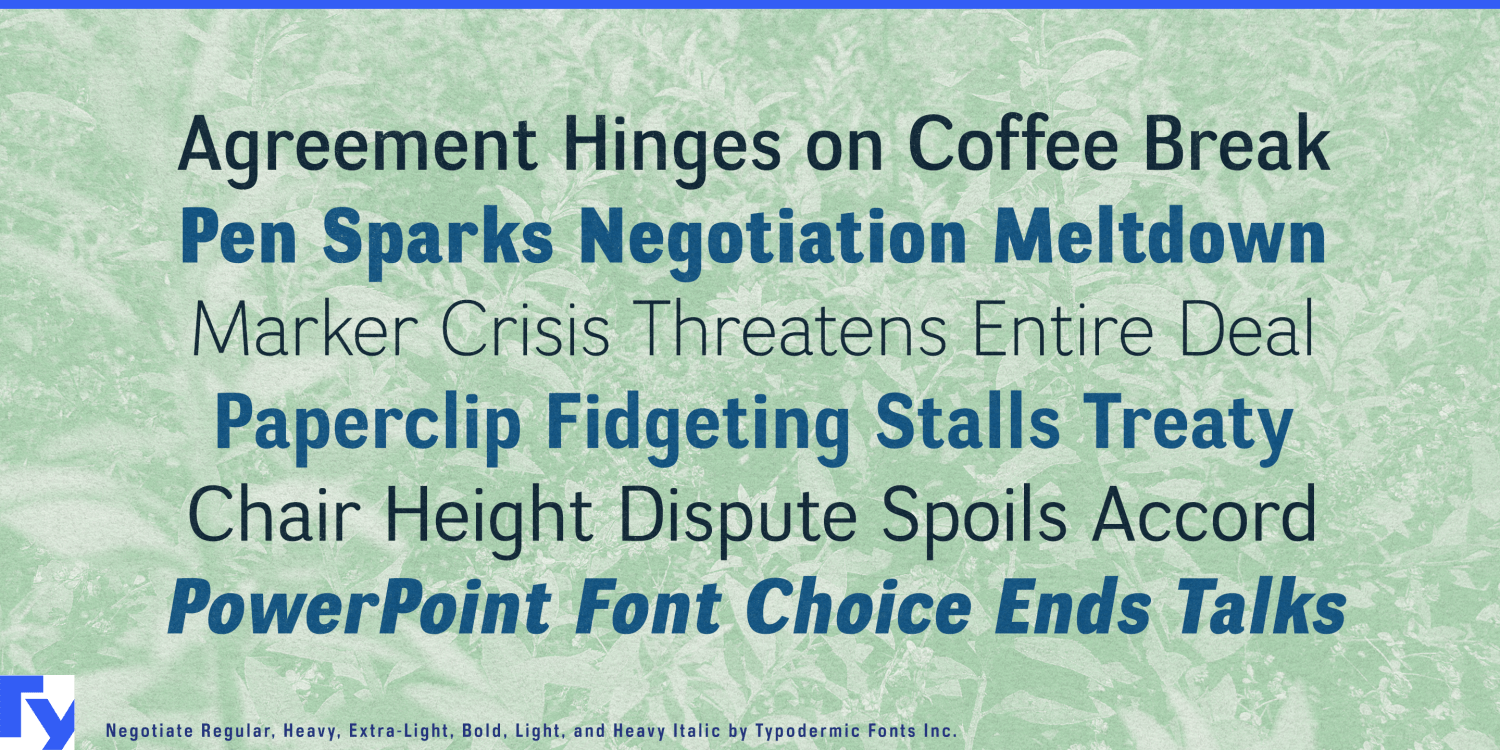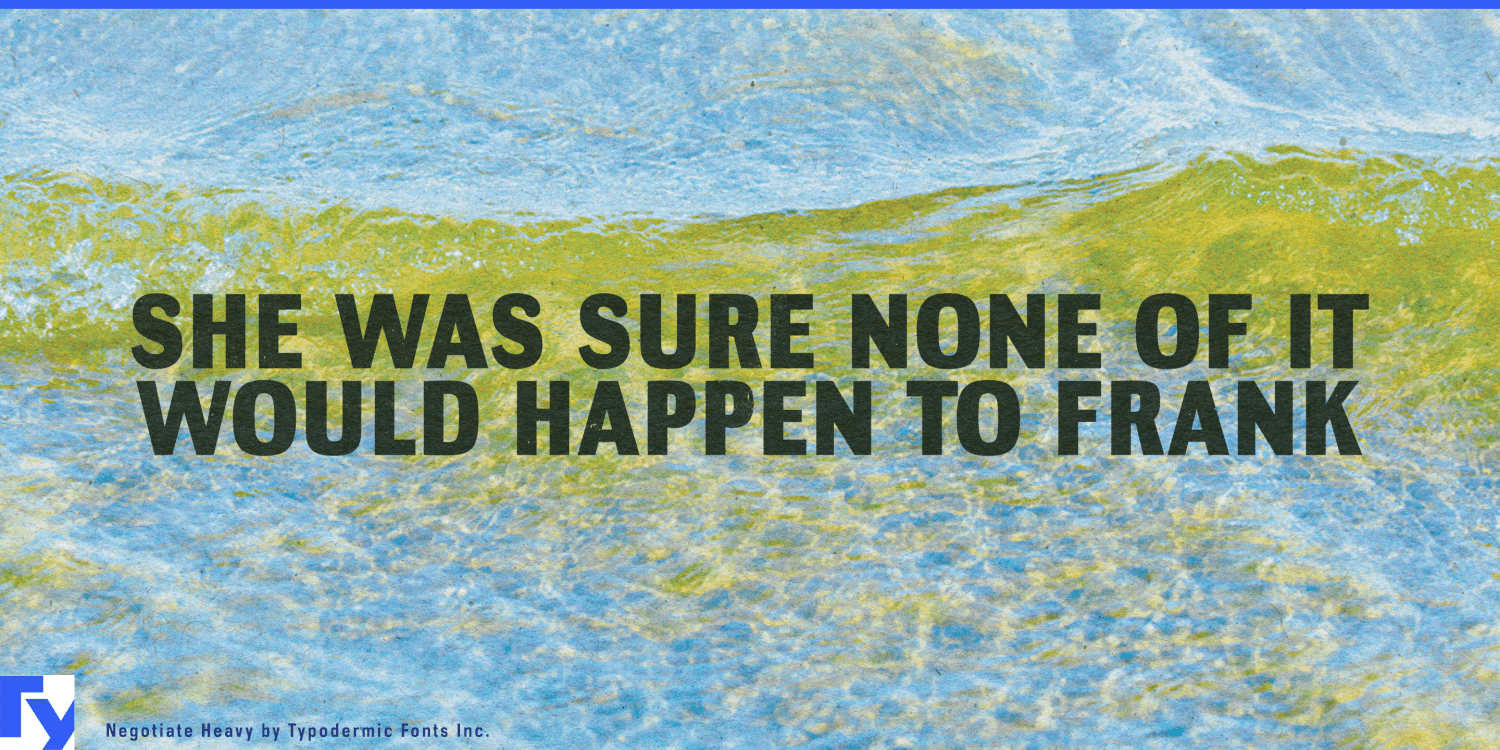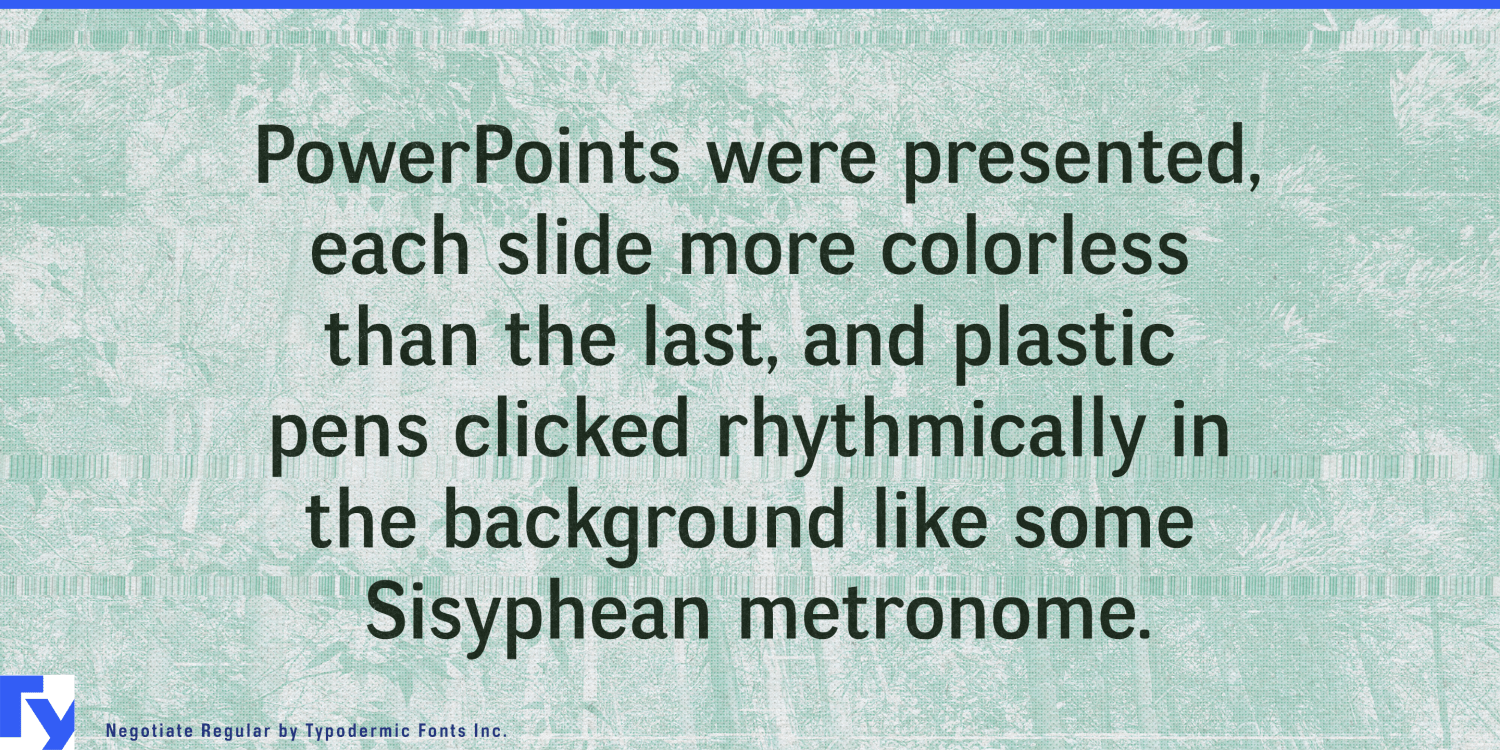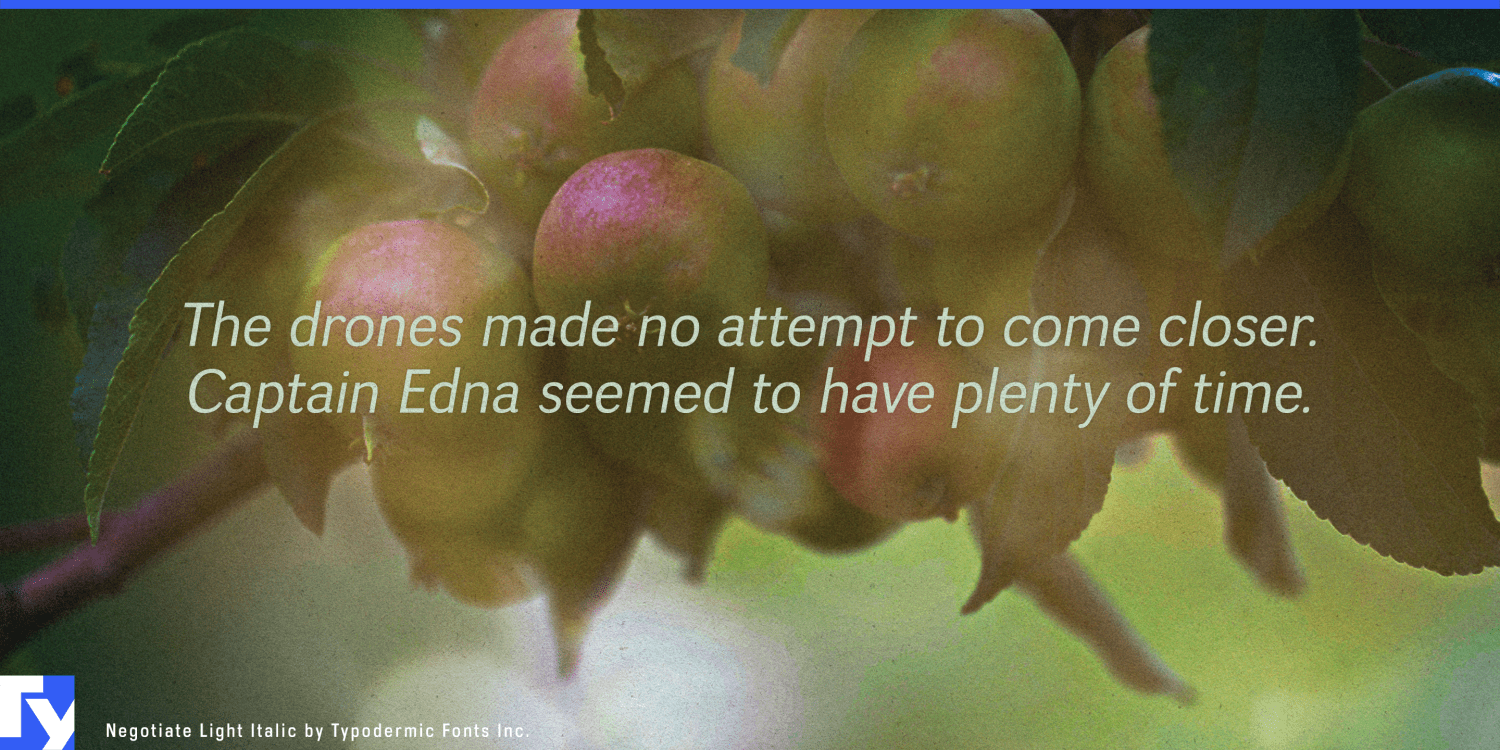
About Negotiate
Negotiate isn’t just a typeface—it’s a masterclass in the art of typographic diplomacy. This sans-serif marvel strikes a delicate balance between assertiveness and grace, its very form a visual representation of the give-and-take inherent…